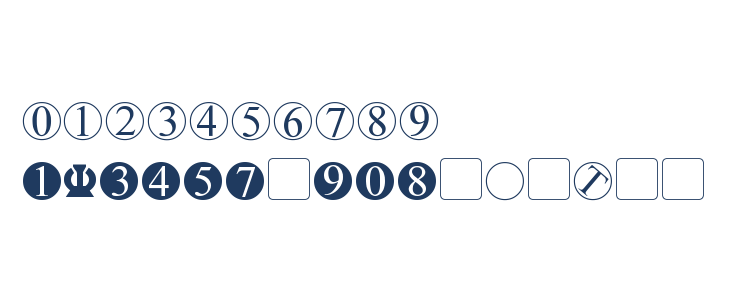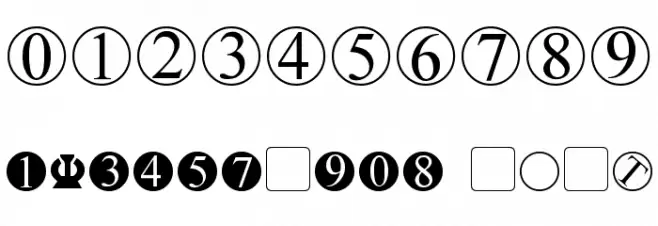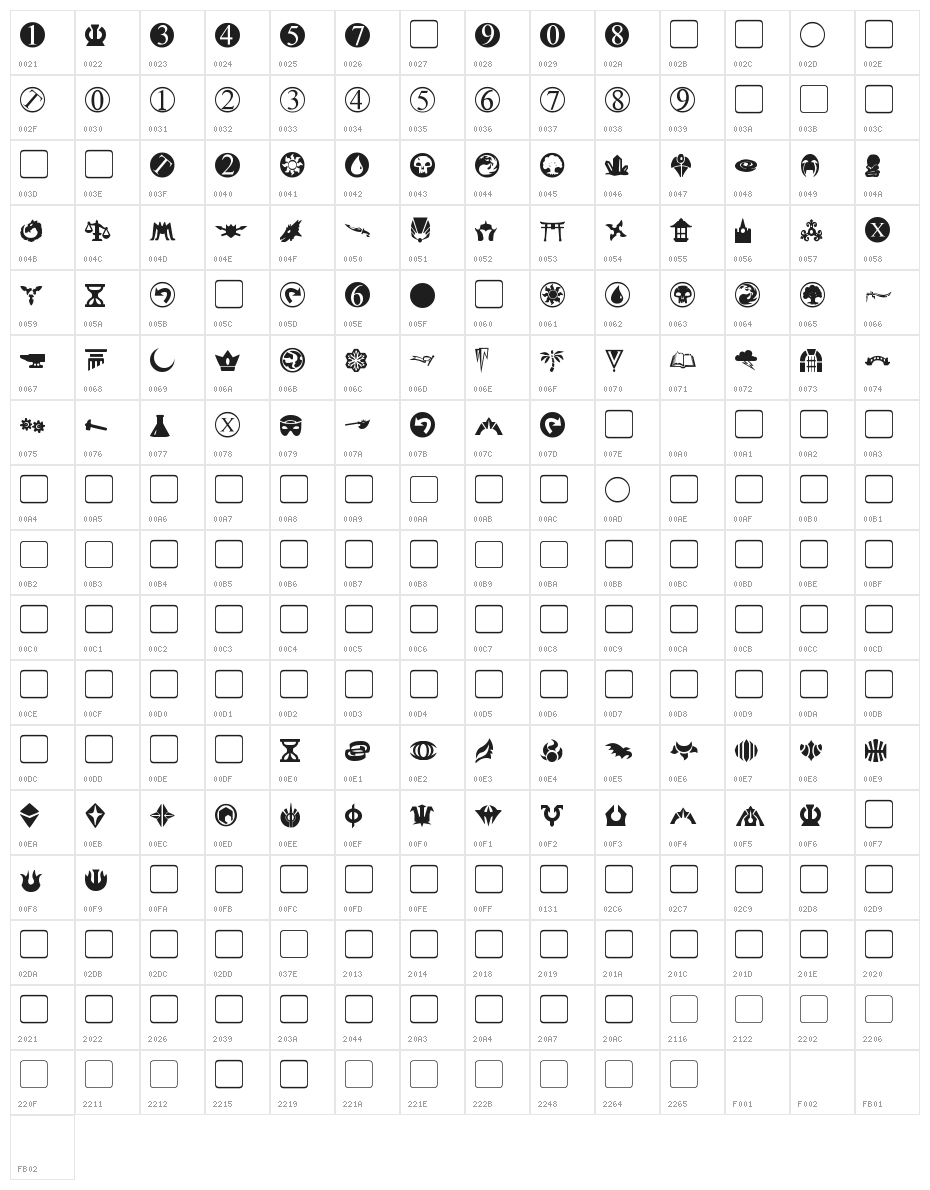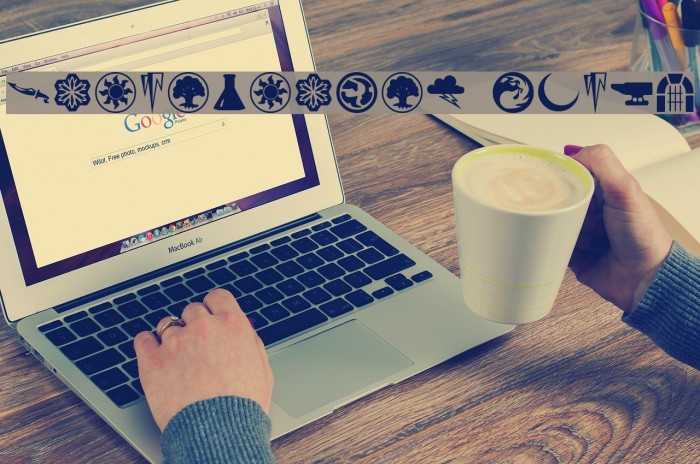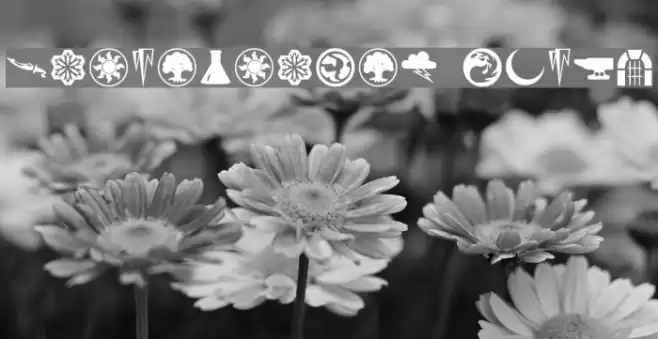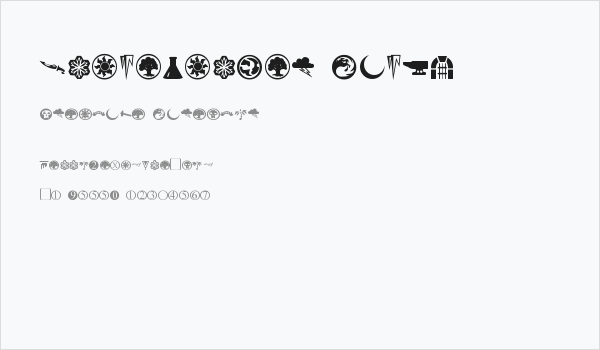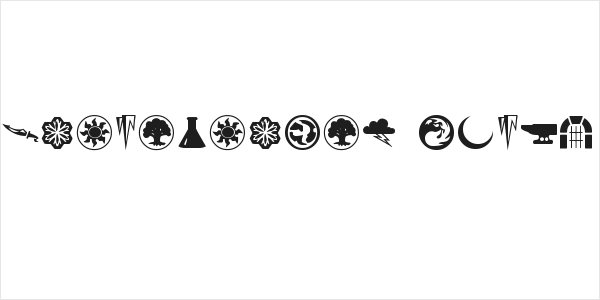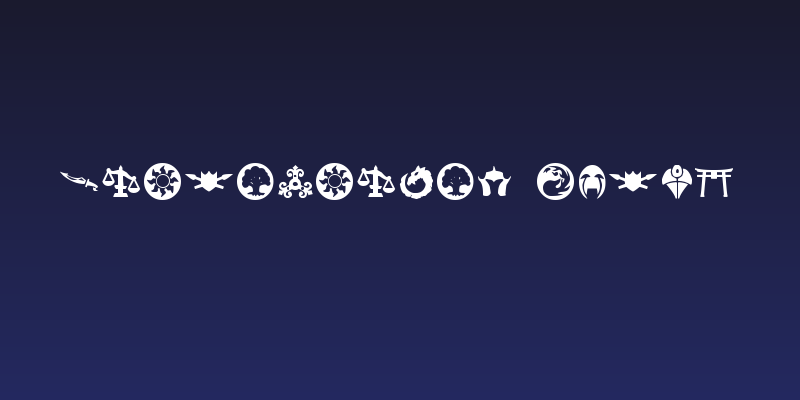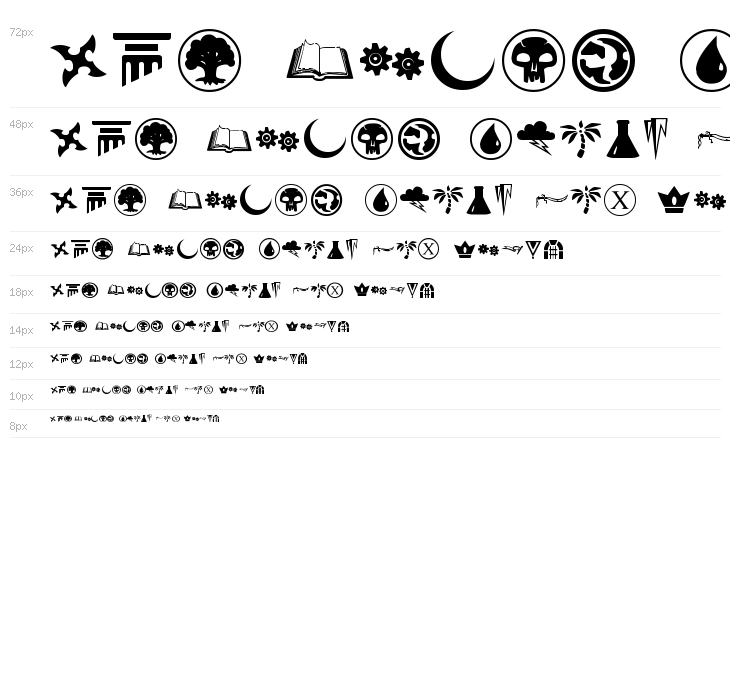
Planewalker Dings Font
Planewalker Dings Description
This collection features a series of intricate and thematic symbols, each encapsulated within a circular frame. The designs range from elemental motifs like water droplets and flames to abstract and mythical figures such as dragons and masks. The symbols are bold and distinct, making them ideal for use in fantasy-themed projects or games. The numbers are encased in circles, maintaining the thematic consistency of the set. Each symbol is crafted with attention to detail, ensuring clarity and visual impact.
| Proposed Projects | This set is perfect for use in fantasy games, role-playing game manuals, themed event invitations, or as decorative elements in graphic design projects. |